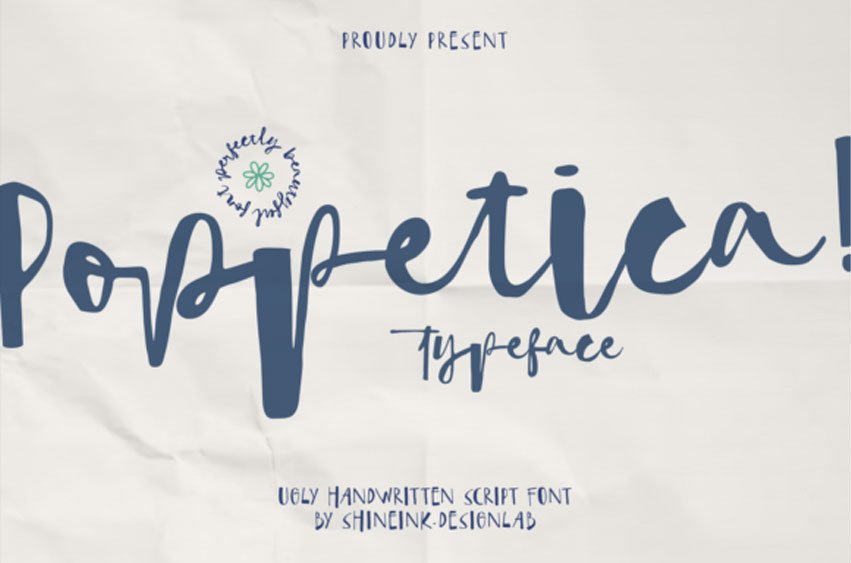
Poppetica Font is a uniquely expressive handwritten script font that celebrates personality, charm, and beautifully imperfect handwriting. Every stroke in Poppetica feels human—loose, lively, and unapologetically natural—giving your designs a warm, hand-crafted feel that instantly stands out.
With its tall loops, quirky curves, and spontaneous rhythm, Poppetica brings a fresh dose of character to any creative project. Whether you’re designing branding elements, quotes, packaging, or social media graphics, this typeface adds a touch of authenticity that feels both modern and artistic.
Poppetica is designed for creators who want their work to feel honest, expressive, and distinct. Its natural imperfections are exactly what make it memorable—no two letters feel the same, giving your designs a warm aesthetic that digital perfection can’t replicate.
Poppetica Font Preview